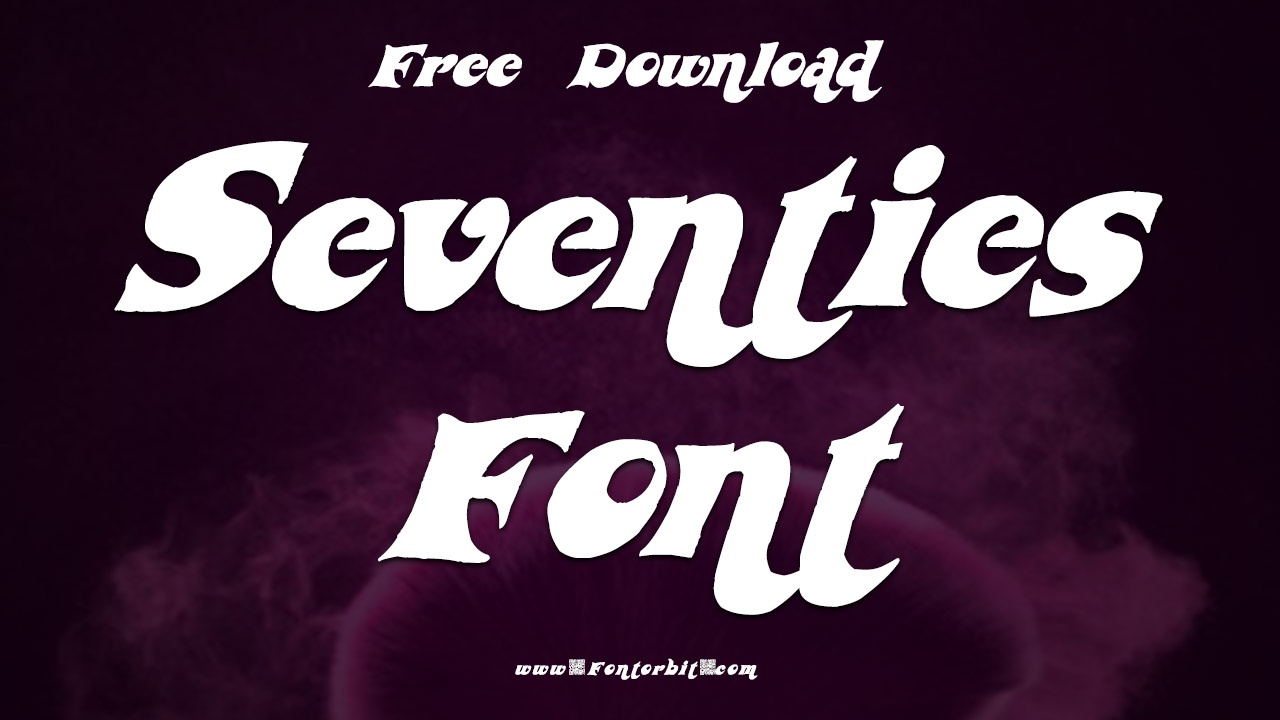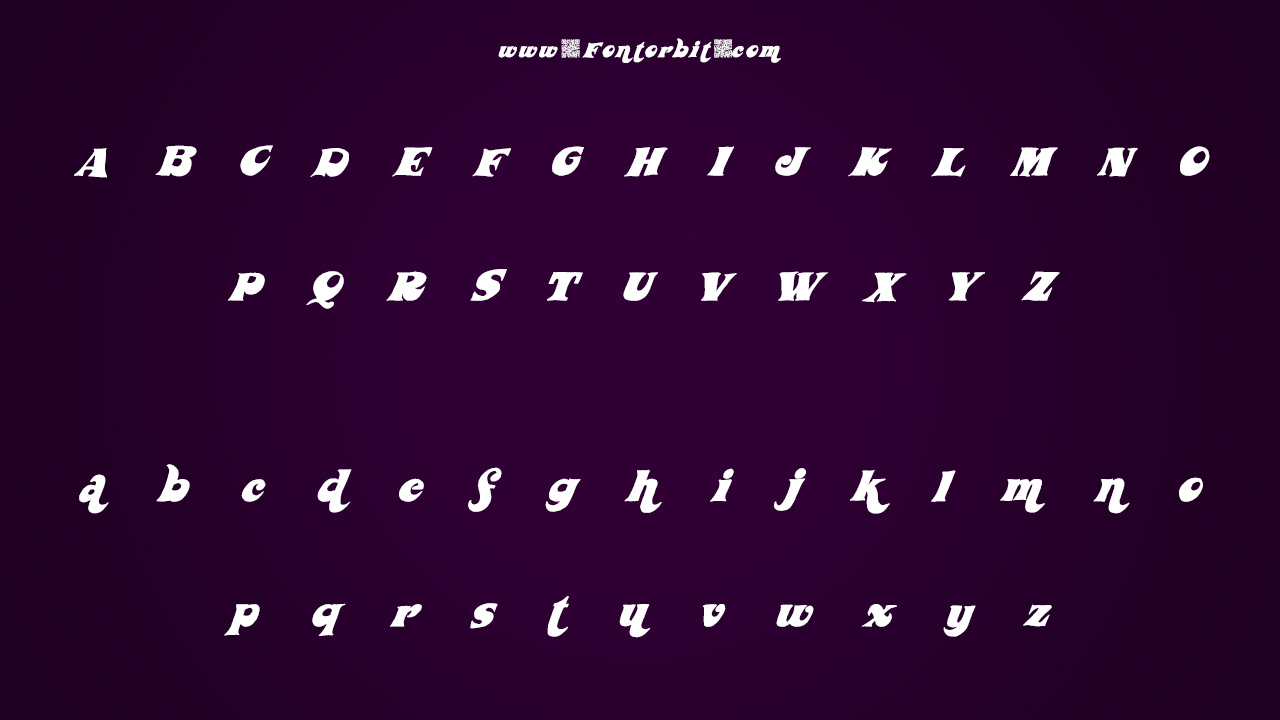
Seventies Font Family, designed by Maximiliano R. Sproviero and published by Lián Types, is a tribute to the vibrant and eclectic typography of the 1970s.
With its six distinct styles, the Seventies captures the ‘groovy’ essence of the decade, offering a unique and colourful touch to various design projects.
Type Of Seventies Font (Font Family)
- Seventies Regular
- Seventies Finale
- Seventies Norm
- Seventy Three
- Seventies Shade
- Seventies Shine
- Seventies Printed
- Plus additional styles
The Seventies Font is a distinctive display typeface available in OTF and TTF formats. Its design features thick, brushy letterforms reminiscent of 1970s calligraphy, adapted for modern use. The font’s versatility makes it suitable for posters, branding, magazine covers, and more.
The Seventies Font Found In Use
Seventies Font is ideal for retro-themed projects where a touch of 1970s flair is desired. It’s frequently used in posters, branding, and creative media, where its vibrant and thick letterforms make a bold statement. Its layered styles, such as Seventies Shade and Seventies Shine, add depth and personality to design work.
Seventies Font, designed by Maximiliano R. Sproviero, revives the funky and colorful typography of the 1970s with its bold and brushy letterforms.
It is a display typeface inspired by 1970s typography, featuring thick, brushy letterforms and layered styles for vibrant, retro designs.
Designed by Maximiliano R. Sproviero.
The font family includes Seventies Regular, Seventies Shade, Seventies Shine, and Seventies Printed, among others.
It’s ideal for posters, branding, magazine covers, and creative advertising, providing a retro, vibrant look.